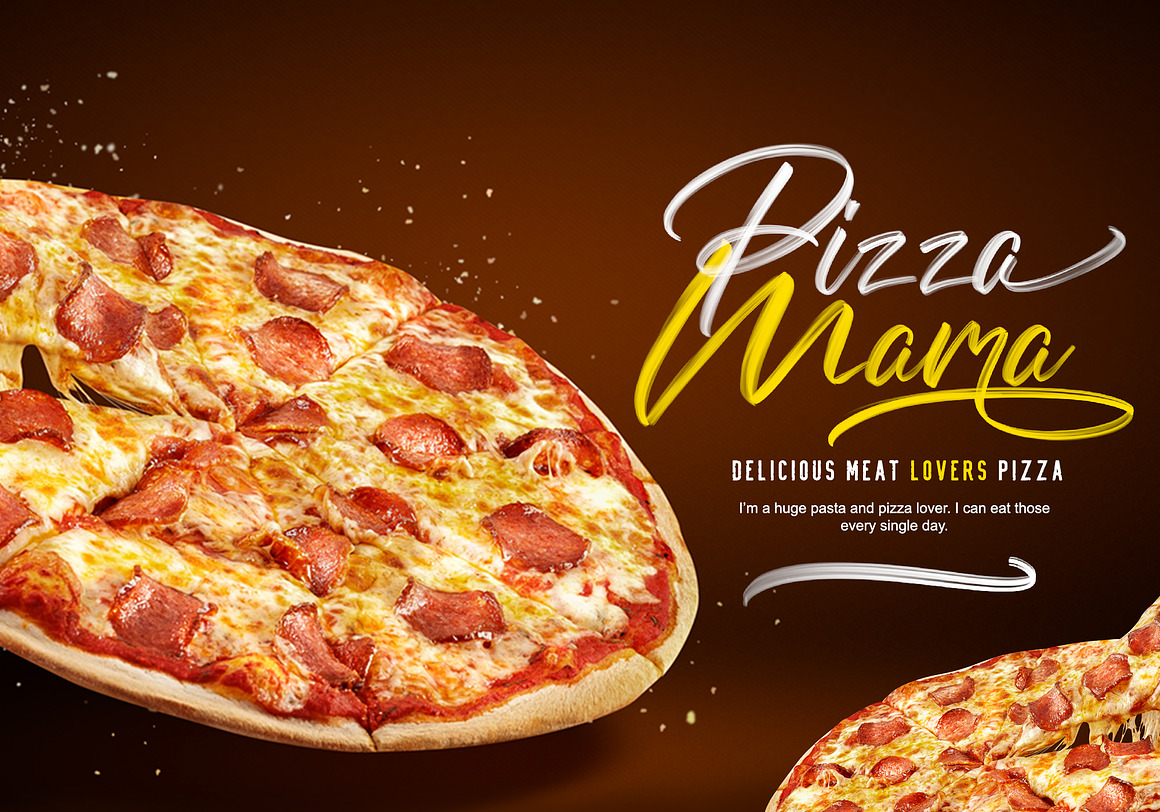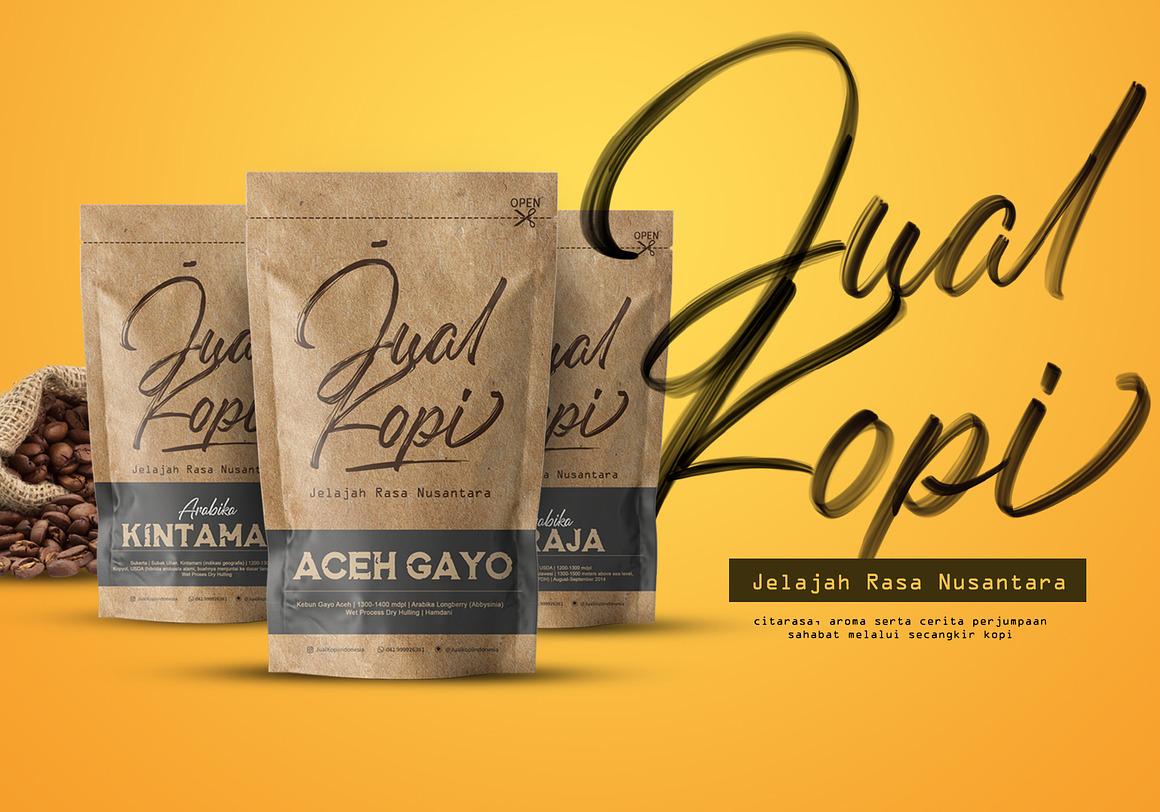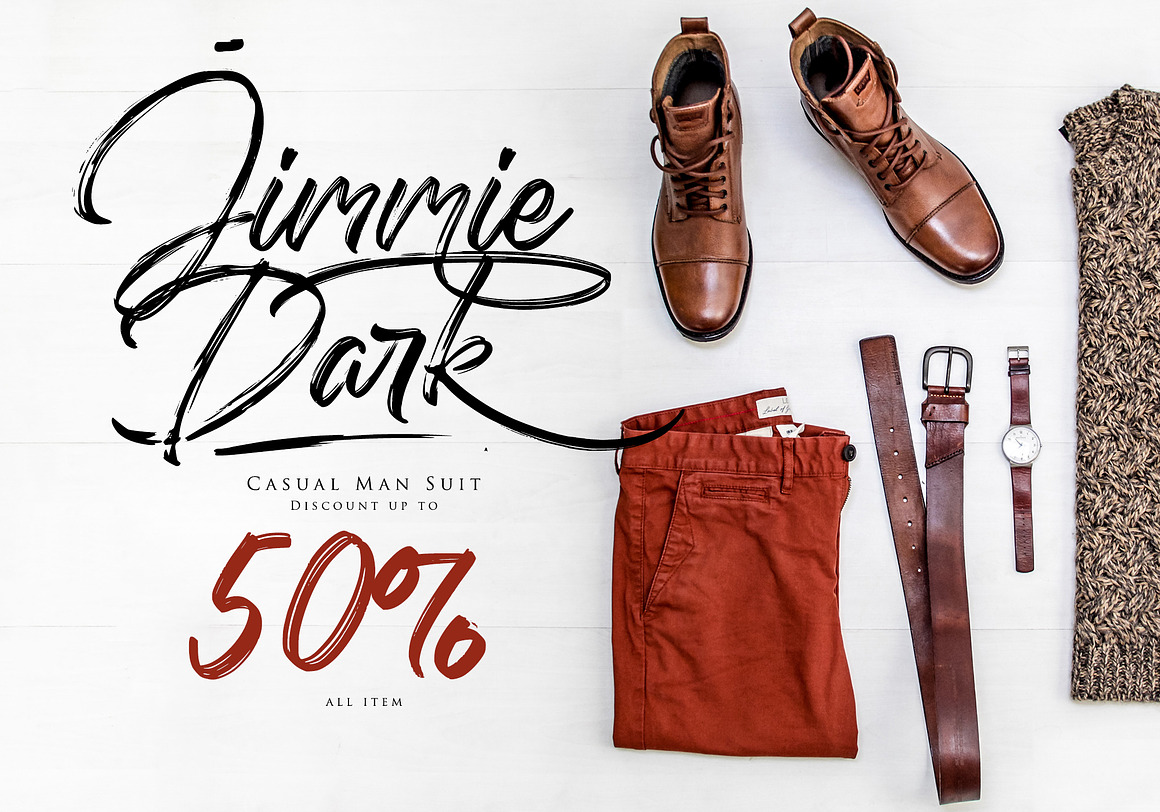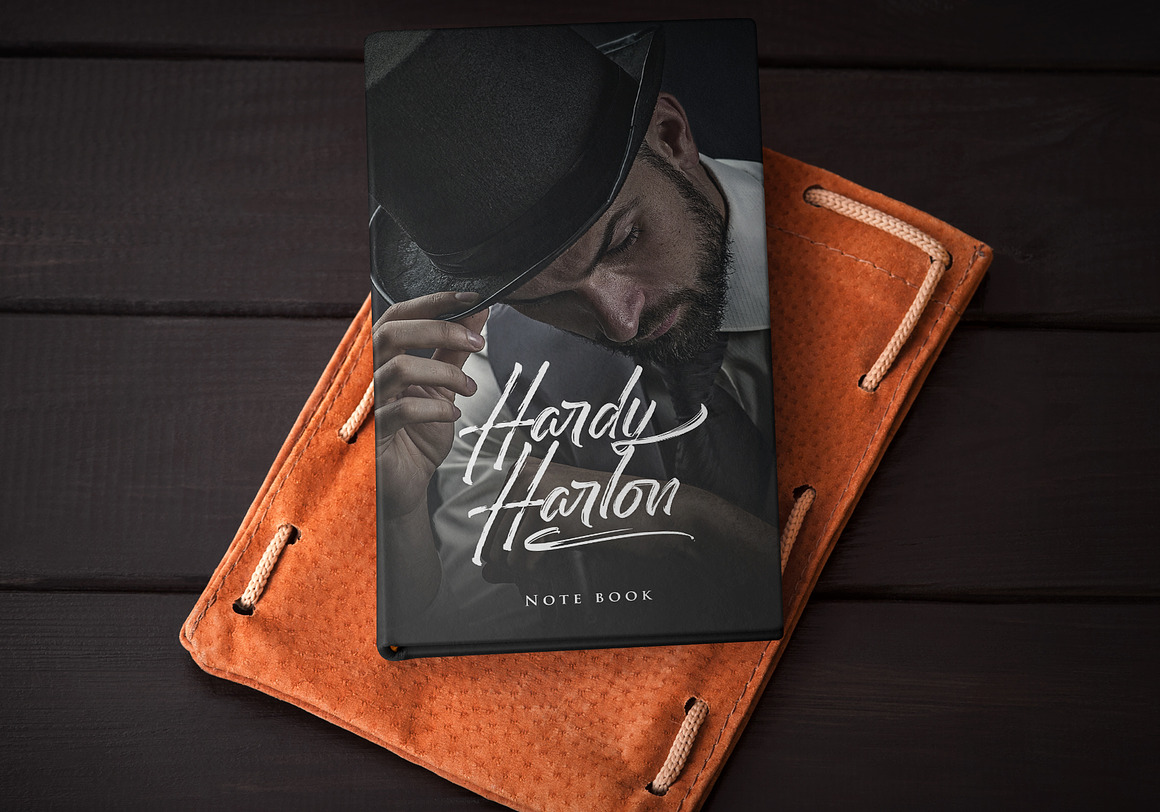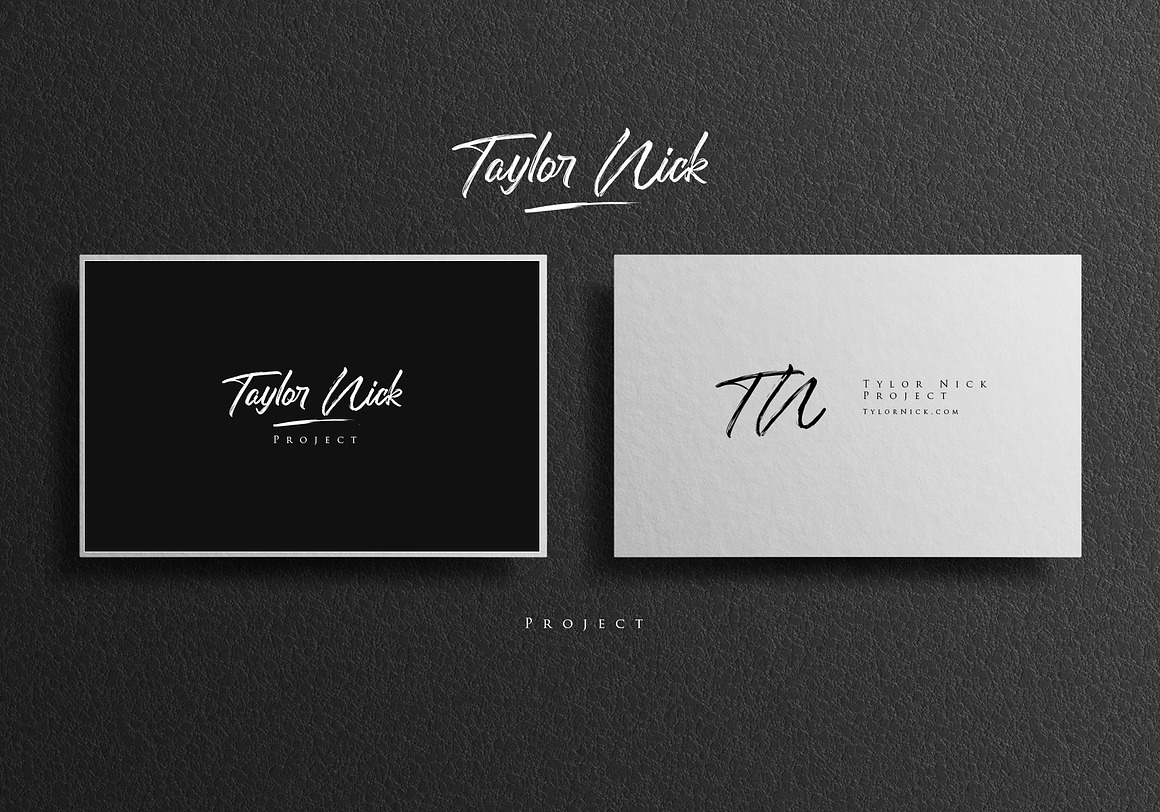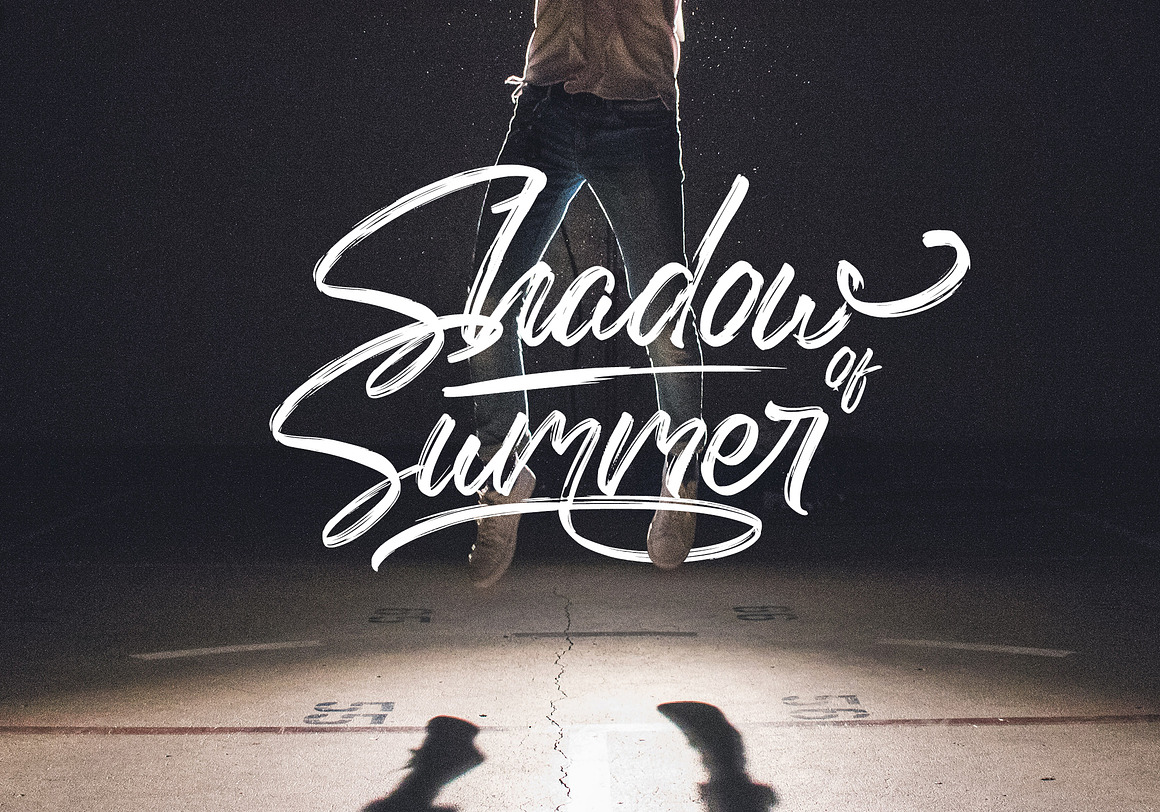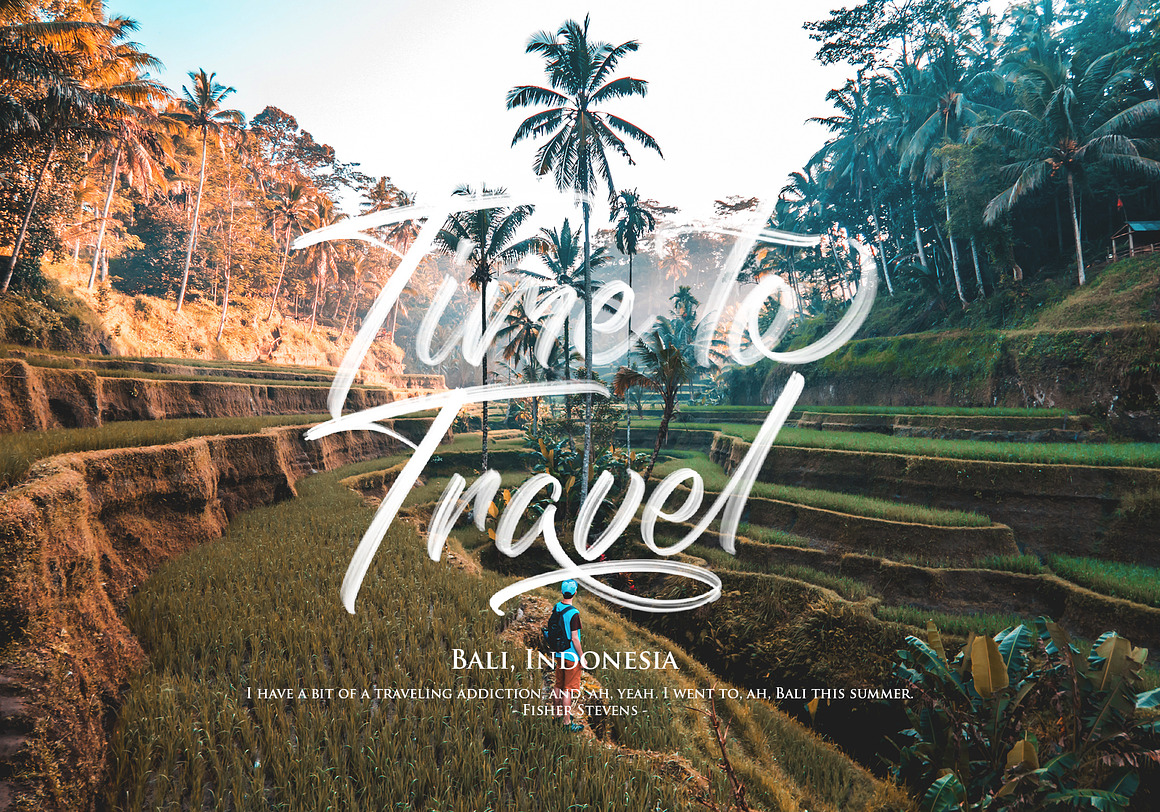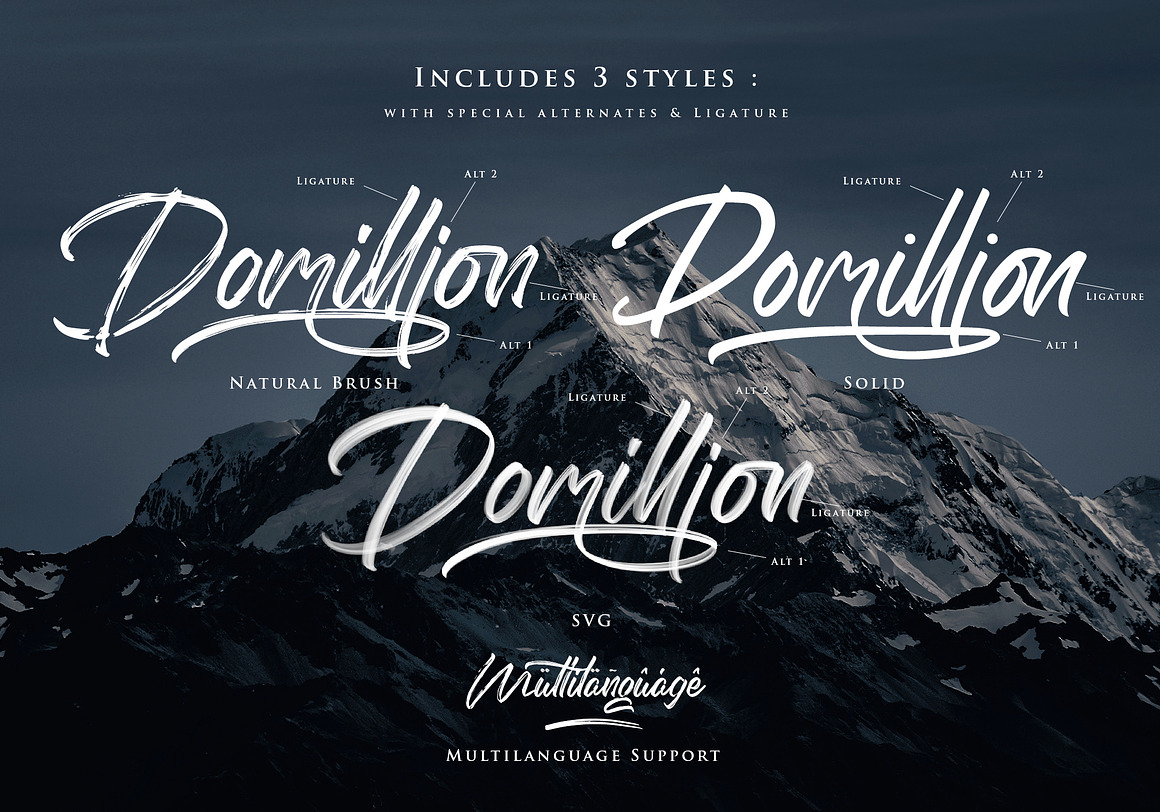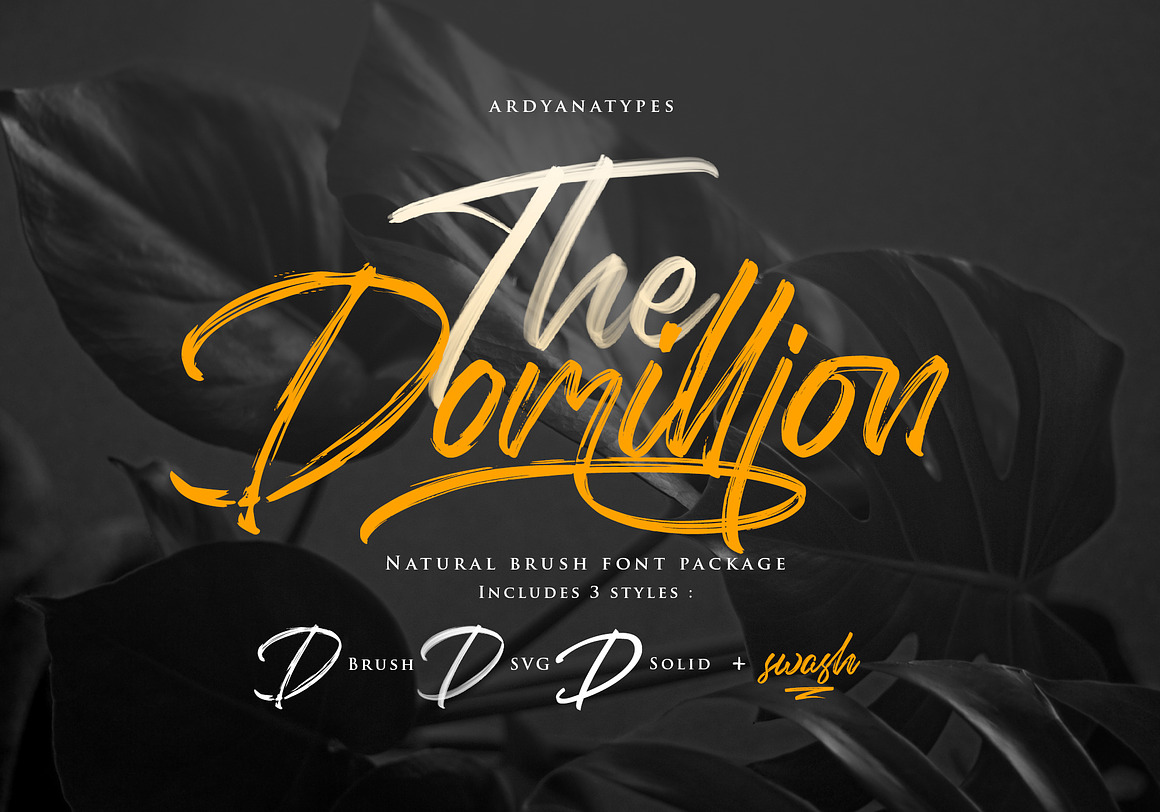
The Domillion Brush Font
The Domillion Brush Font is perfect for artistic logos, creative branding, hand-lettered signage, expressive posters, indie music albums, artistic social media graphics, craft product labels, artistic portfolios, creative marketing campaigns, and authentic handmade aesthetics.
What makes The Domillion Brush Font so exciting is its authentic brush stroke character that captures the spontaneous energy of hand-painted lettering while maintaining professional quality and readability. This dynamic typeface combines artistic expression with contemporary functionality, creating typography that speaks with genuine creative voice.
The The Domillion Brush Font family includes regular and bold weights, featuring natural brush variations, organic textures, contextual alternates, and artistic flourishes that provide designers with comprehensive tools for creating authentic hand-painted typography effects.
Unleash artistic expression with The Domillion Brush Font Free Download, a masterfully crafted brush typeface that brings the authentic energy of hand-painted artistry to contemporary design projects. This exceptional font embodies the perfect fusion of artistic spontaneity and professional precision, making it an essential tool for designers who celebrate creative authenticity.
The dynamically textured letterforms of The Domillion Brush Font showcase genuine brush stroke characteristics with natural imperfections and organic flow that create instant visual impact and artistic credibility. Each character displays careful attention to maintaining the authentic energy of hand-painted lettering while ensuring consistent readability across all applications. The font's expressive textures and natural variations contribute to its artistic appeal and creative versatility.
Creative agencies and artistic brands consistently choose The Domillion Brush Font for projects requiring authentic handmade character and artistic expression. The comprehensive character set includes uppercase and lowercase letters, numerals, extensive punctuation, and artistic alternates that provide complete support for creative design applications and expressive typography compositions.
The artistic versatility of The Domillion Brush Font makes it equally effective across traditional print and modern digital platforms. Whether developing creative brand identities, designing artistic marketing materials, or creating expressive social media content, this remarkable typeface delivers consistent authenticity that resonates with audiences seeking genuine artistic expression.